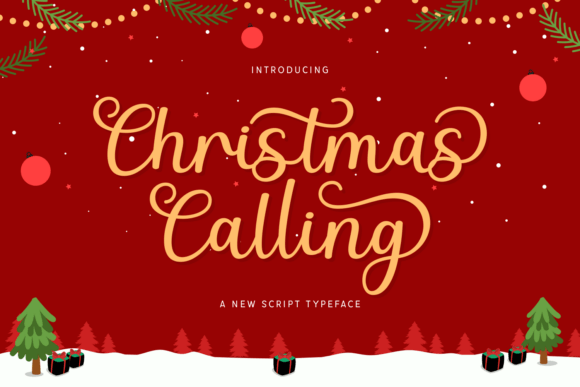
Christmas Calling Font: Elevate Your Designs with Elegance and Charm
As the holiday season approaches, designers and creatives are on the lookout for the perfect typography to capture the essence of Christmas. One font that stands out from the rest is Christmas Calling, a bold script font that exudes elegance and sophistication. In this article, we’ll dive into the world of Christmas Calling Font, exploring its features, uses, and benefits, as well as provide tips on how to incorporate it into your designs.
What is Christmas Calling Font?
Christmas Calling is a bold script font that features elegant, flowing letters. It’s perfect for creating eye-catching titles and invitations that demand attention. The style combines a modern look with a touch of classic charm, making it versatile for various designs. Whether for headlines or quotes, it adds a stylish flair to your text.
Key Features of Christmas Calling Font
- Elegant and Flowing Letters: Christmas Calling Font boasts beautiful, cursive letters that flow effortlessly across the page.
- Bold and Eye-Catching: The font’s bold style ensures that your text stands out, making it perfect for titles, headings, and invitations.
- Modern yet Classic: Christmas Calling Font strikes the perfect balance between modern sophistication and classic charm, making it suitable for a wide range of designs.
- Versatile: The font can be used for various design projects, from holiday-themed designs to everyday applications.
Uses of Christmas Calling Font
Christmas Calling Font is an incredibly versatile font that can be used in a variety of design projects, including:
Holiday-Themed Designs
- Christmas Cards and Invitations: Create beautiful, eye-catching invitations and cards that set the tone for the holiday season.
- Holiday Posters and Flyers: Use Christmas Calling Font to create stunning posters and flyers that advertise holiday events, sales, and promotions.
- Social Media Graphics: Add a touch of elegance to your social media graphics, including Facebook posts, Instagram stories, and Twitter headers.
Everyday Applications
- Logos and Branding: Use Christmas Calling Font to create a unique and memorable logo for your business or brand.
- Headings and Titles: Add a touch of sophistication to your website, blog, or publication with Christmas Calling Font.
- Quotes and Sayings: Use the font to create beautiful, stylized quotes and sayings that inspire and motivate.
Benefits of Using Christmas Calling Font
So, why choose Christmas Calling Font for your designs? Here are just a few benefits:
Instant Recognition
Christmas Calling Font’s unique and elegant style ensures that your text stands out, grabbing the attention of your audience.
Versatility
The font’s versatility means you can use it for a wide range of design projects, from holiday-themed designs to everyday applications.
Easy to Read
Despite its bold and elegant style, Christmas Calling Font remains easy to read, making it perfect for use in titles, headings, and body text.
Tips for Using Christmas Calling Font
To get the most out of Christmas Calling Font, follow these tips:
Use it Sparingly
While Christmas Calling Font is beautiful, it’s best used sparingly. Use it for titles, headings, and emphasis, but avoid overusing it.
Pair it with Other Fonts
Experiment with pairing Christmas Calling Font with other fonts to create a unique and visually appealing design.
Experiment with Colors and Textures
Don’t be afraid to experiment with different colors and textures to add depth and interest to your design.
Christmas Calling Font is a stunning, bold script font that adds a touch of elegance and sophistication to any design. Its versatility, ease of use, and instant recognition make it the perfect choice for holiday-themed designs and everyday applications. By following the tips outlined in this article, you can unlock the full potential of Christmas Calling Font and elevate your designs to new heights.